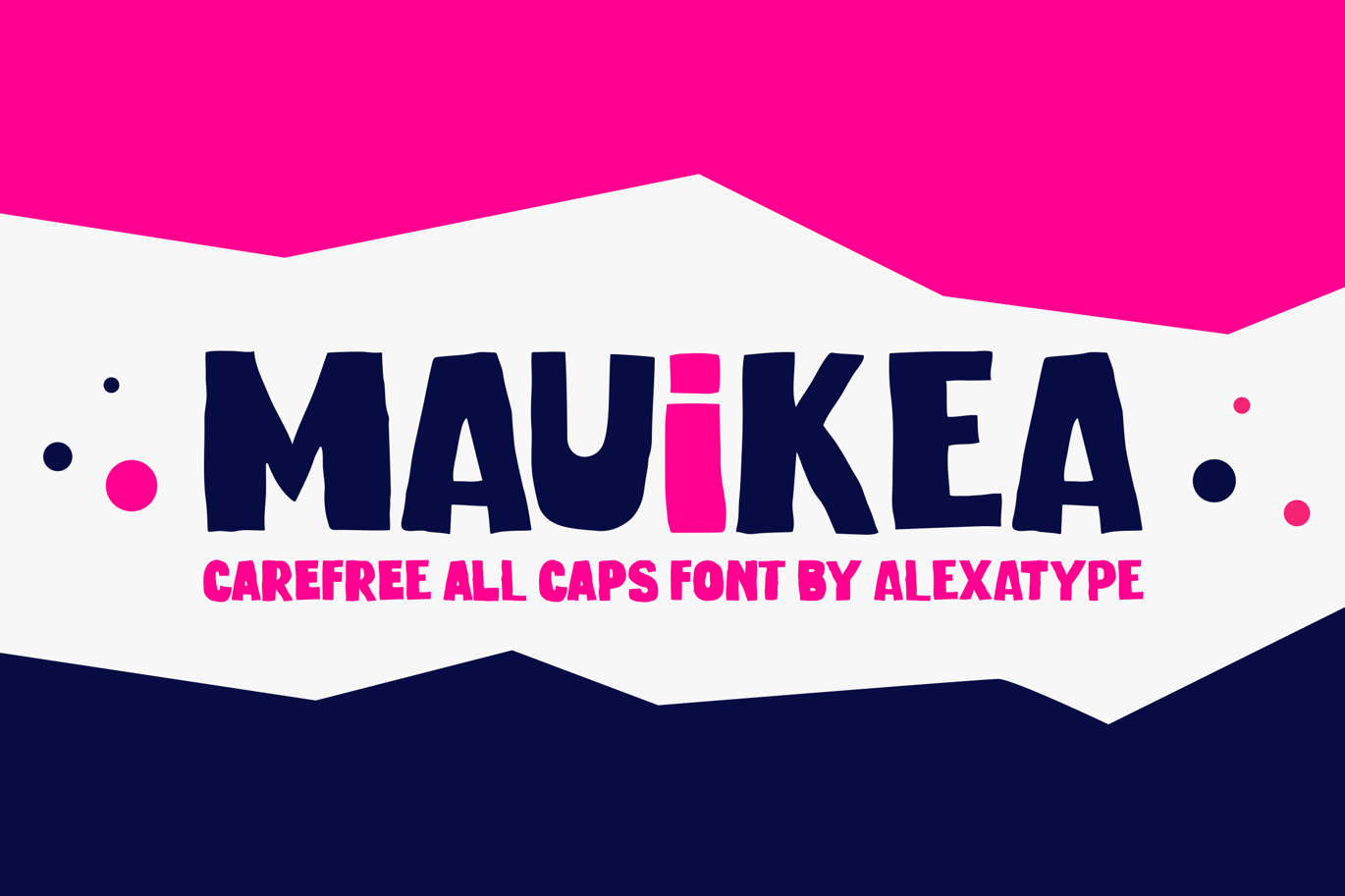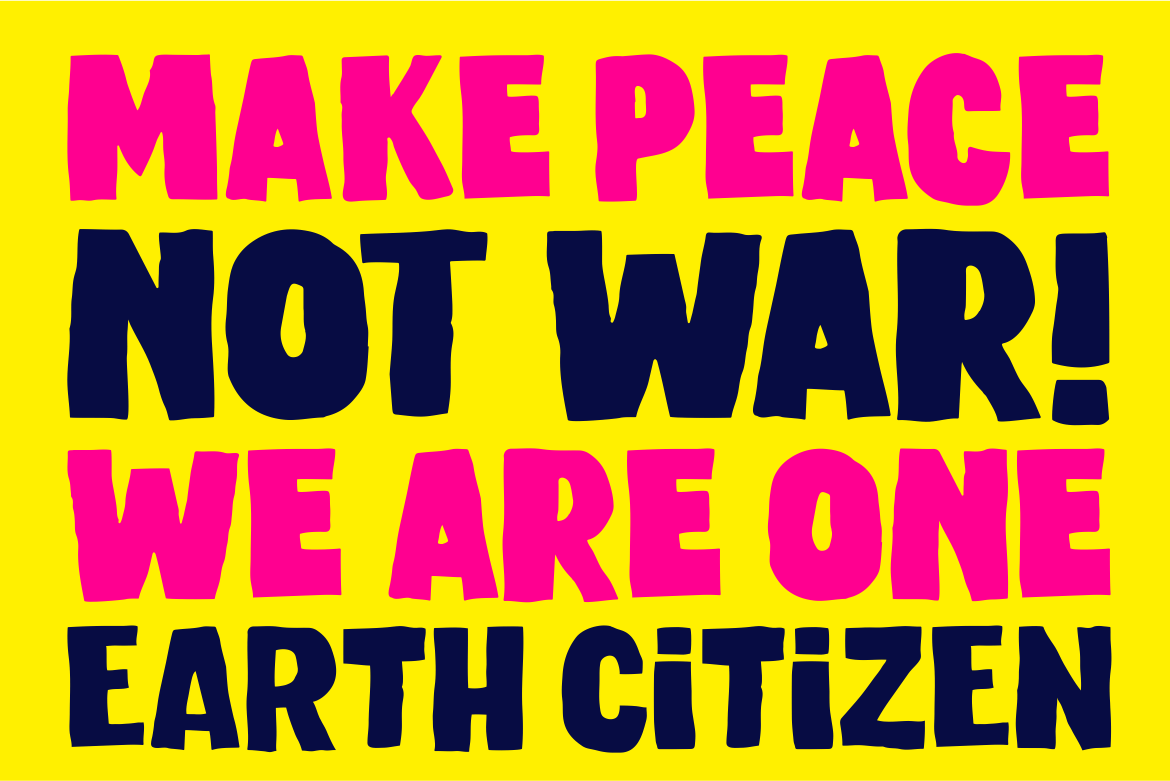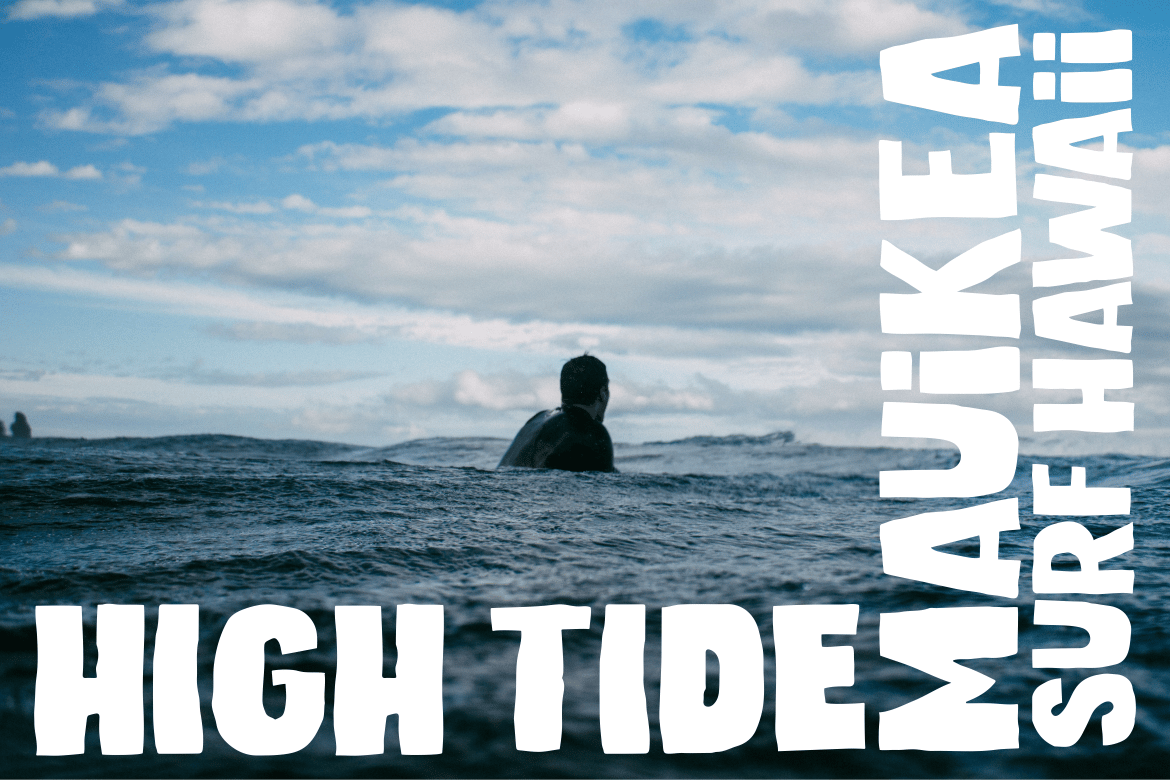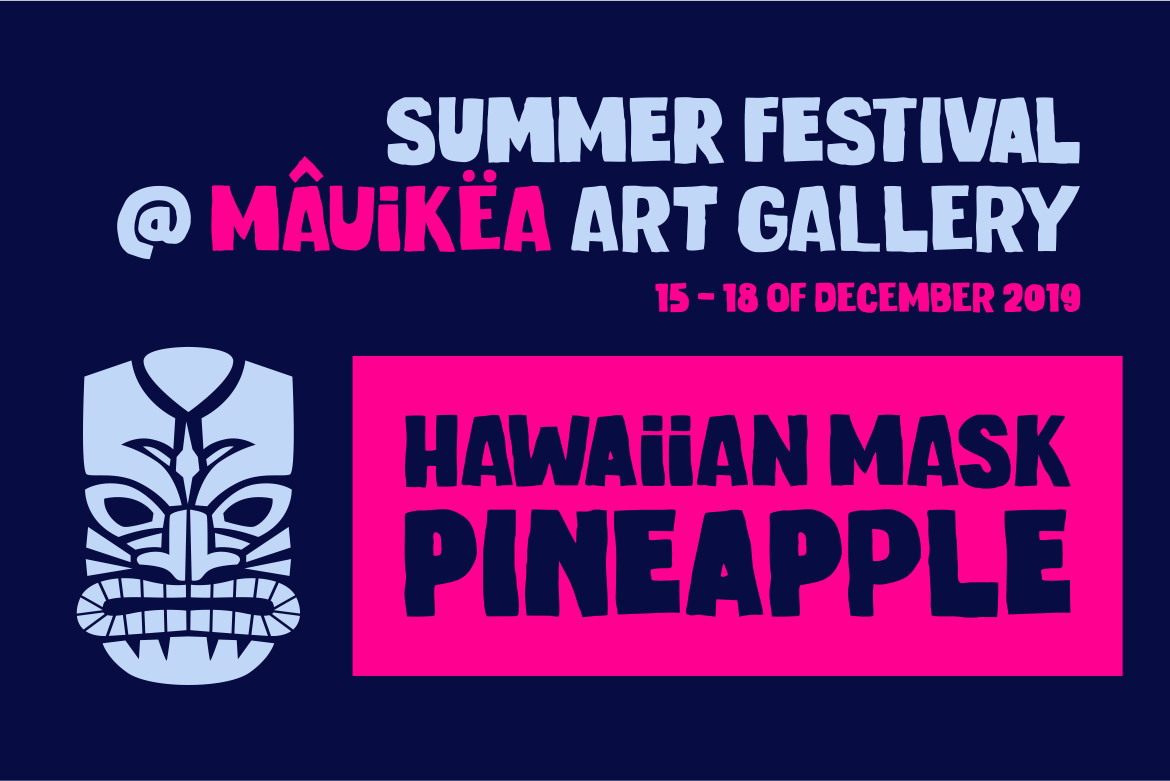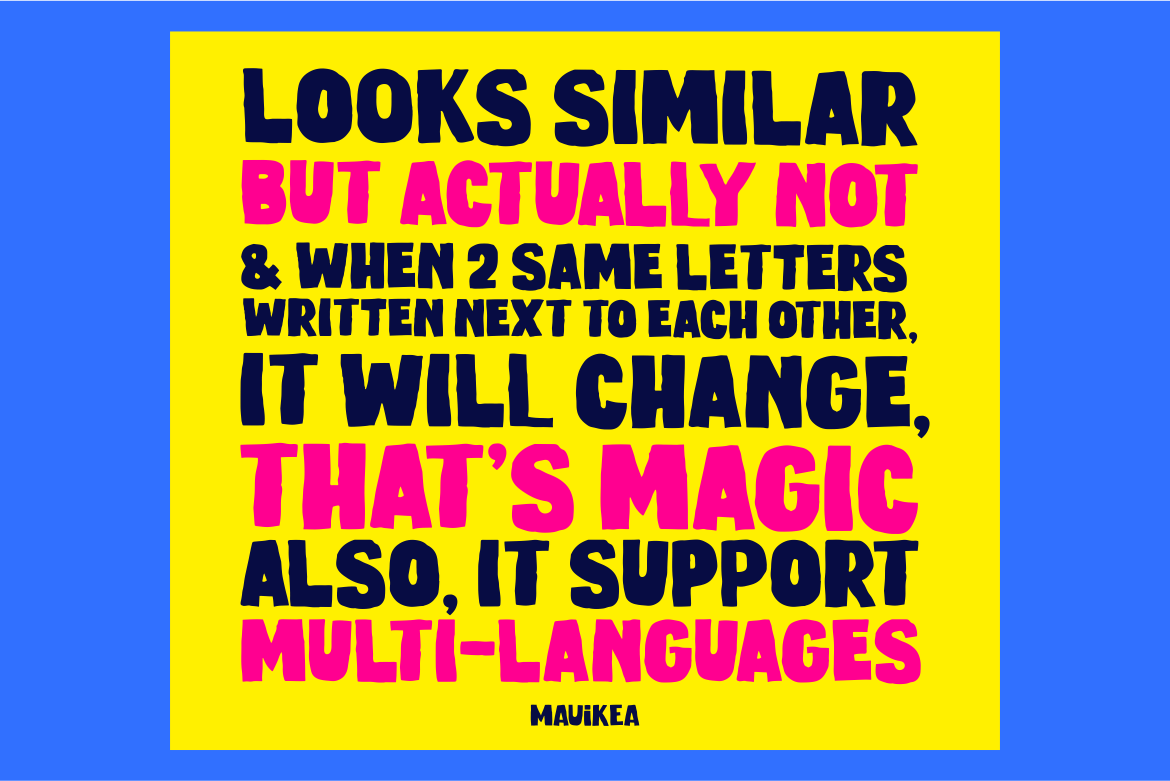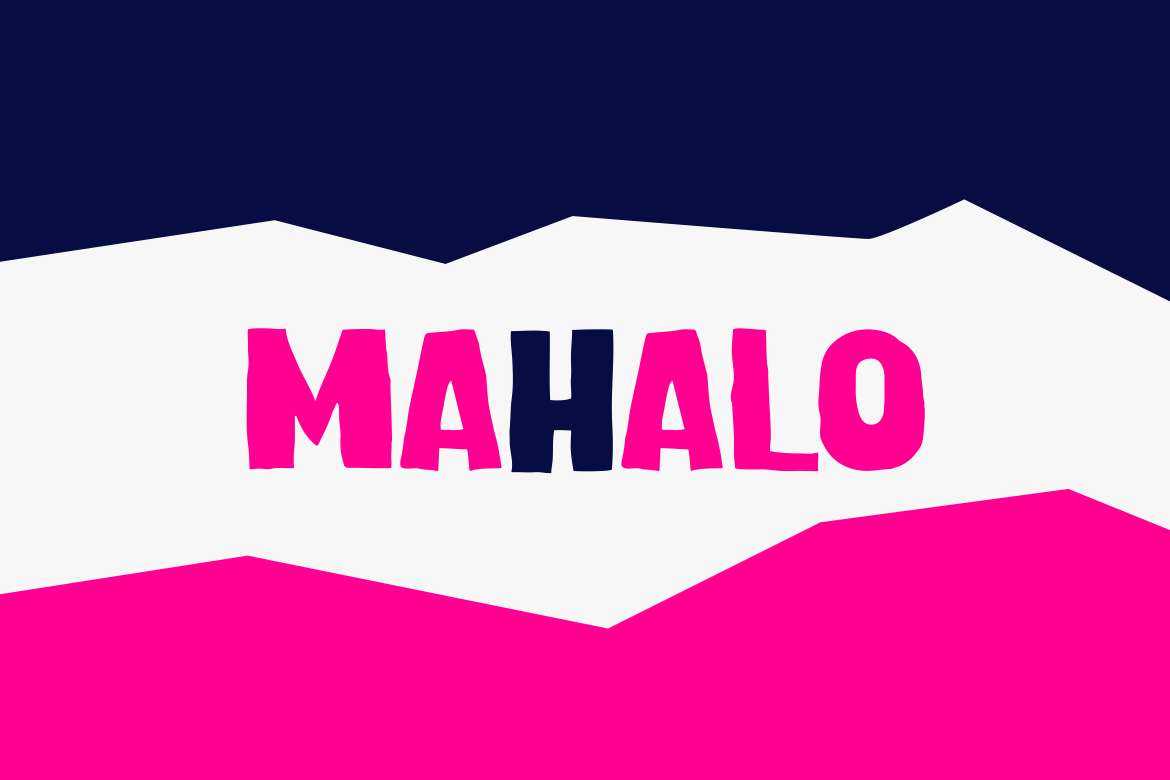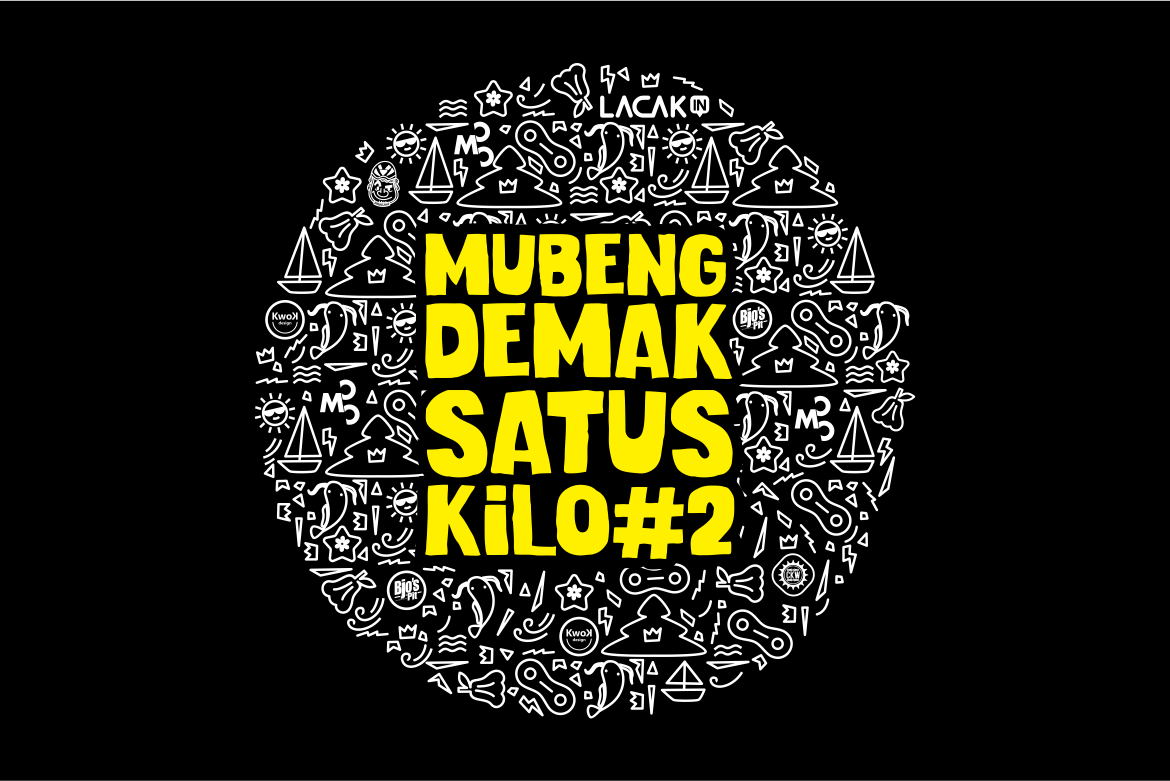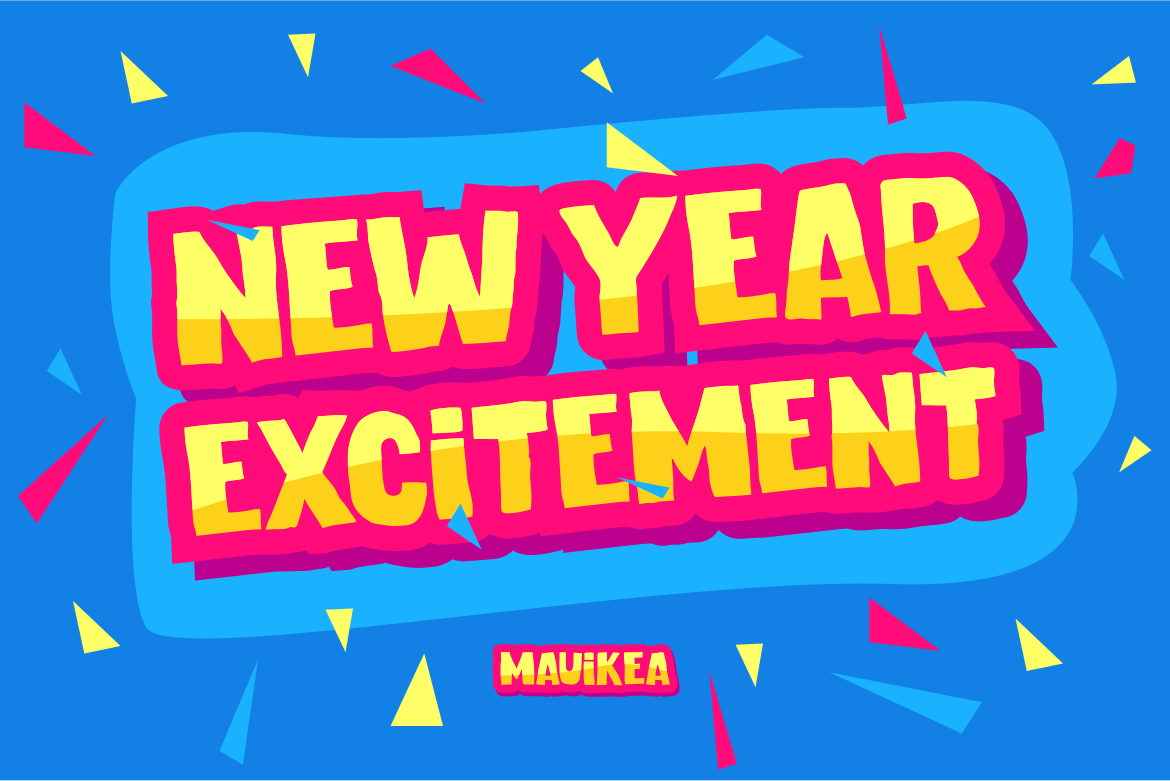
MAUIKEA – Carefree Bold and Fun Display Font
MAUIKEA – carefree bold and fun display font
Created with energy, happy vibes, and a care-free attitude.
MAUIKEA, reminds you about the powerful volcanic mountain, the huge wave, and powerful attitude.
All caps with slightly different shape between lowercase and uppercase, that will gives you more natural feel of it.
BIG POW WOW !!!